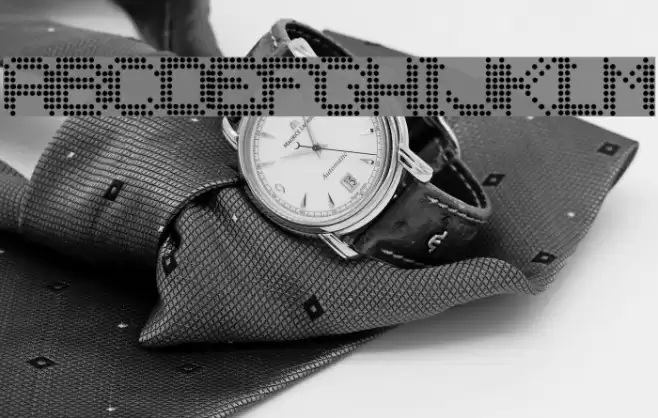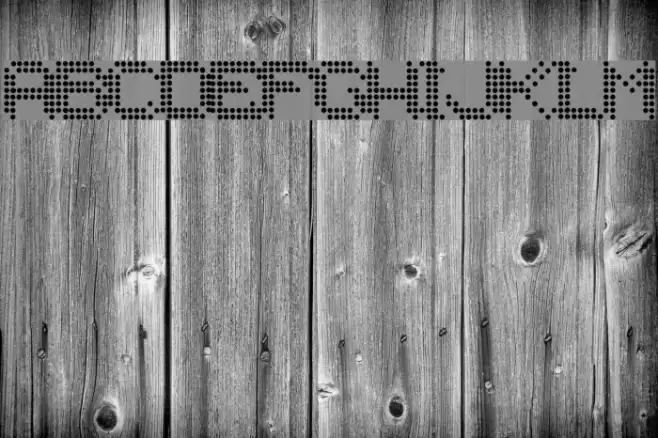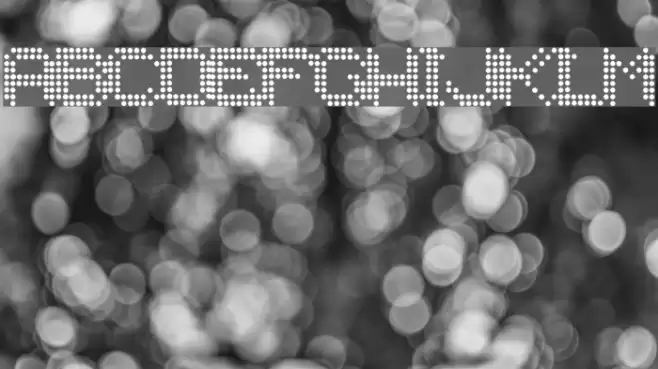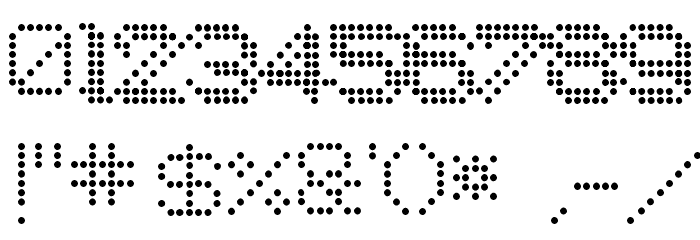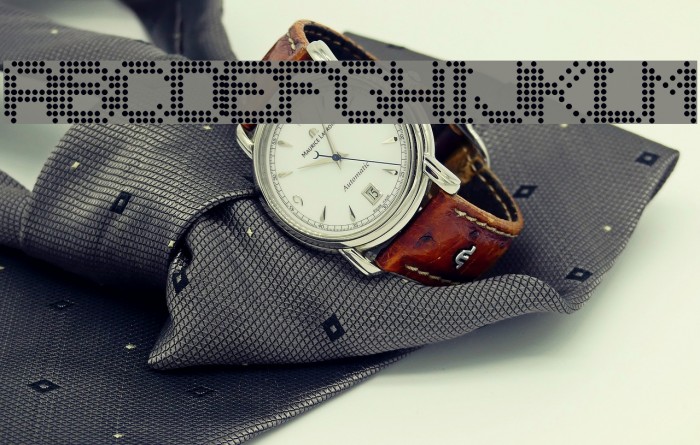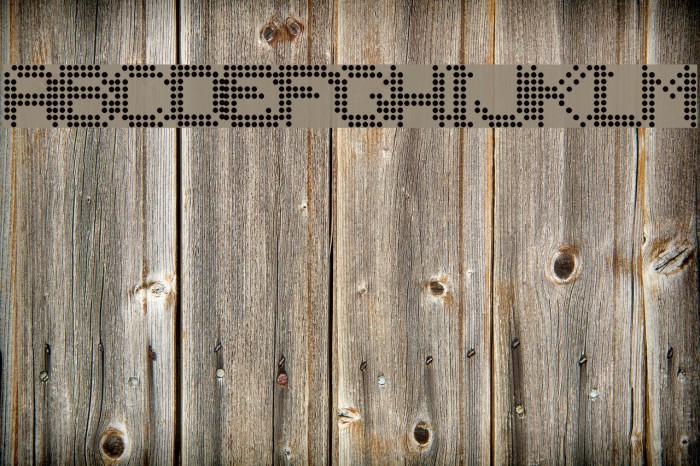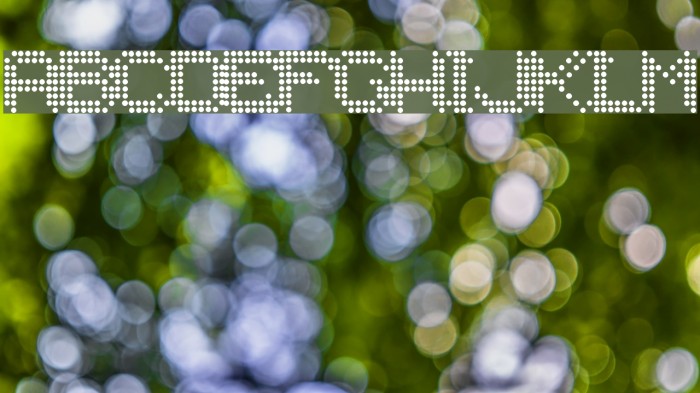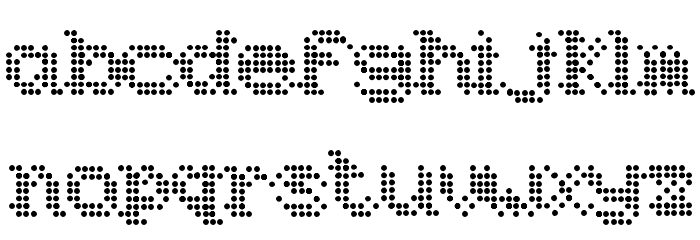
Underworld Odd Font
Underworld Odd Description
This font features a unique dotted design, where each character is composed of small, evenly spaced dots. The style is highly decorative and modern, offering a playful yet structured appearance. The uppercase and lowercase letters maintain consistent dot patterns, creating a cohesive look across the alphabet. Numbers and special characters follow the same design principle, ensuring uniformity. The font's dotted nature gives it a digital or pixelated feel, making it stand out for creative projects.
A modern, dotted decorative font with a playful, pixelated style from Uncategorized fonts.
- Proposed Projects: Ideal for digital art, tech-themed designs, posters, and creative branding projects.
- Use Case: Logos, Posters, Digital Art